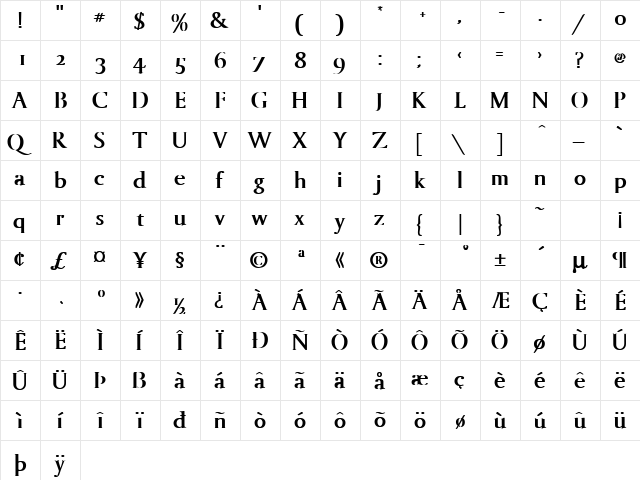
SanDiego-Bold Normal
Design Context for SanDiego-Bold Typeface
SanDiego-Bold takes a measured approach to typography — its balanced proportions and neutral character make it a reliable workhorse for both digital and print work. Its bold stroke weight gives it real presence on the page.